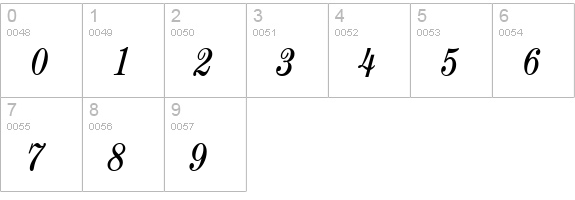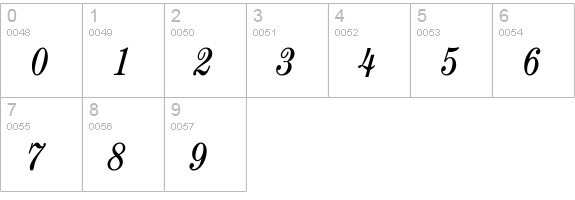
CenturyNova-Cd-BookItalic Font Details
CenturyNova-Cd-BookItalic is a stunning and elegant font that perfectly combines classic sophistication with a modern twist. Its sleek and italic design exudes a sense of style and sophistication, making it an ideal choice for projects that require a touch of class. The unique characteristics of this font make it stand out, adding a touch of elegance to any design. Best of all, CenturyNova-Cd-BookItalic is available for free download at FontsMarket.com. This means that you can easily access this beautiful font without any cost, making it a fantastic option for designers, creatives, and anyone looking to elevate their projects with a touch of luxury. Download CenturyNova-Cd-BookItalic today and add a touch of elegance to your designs!